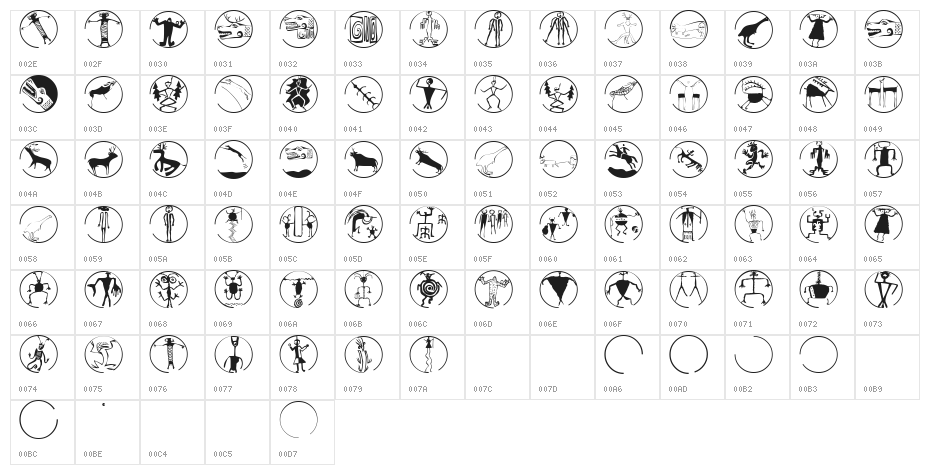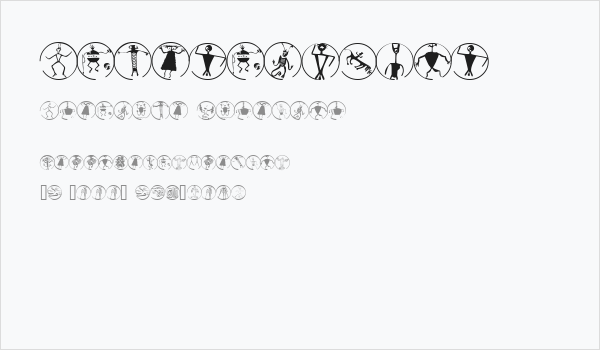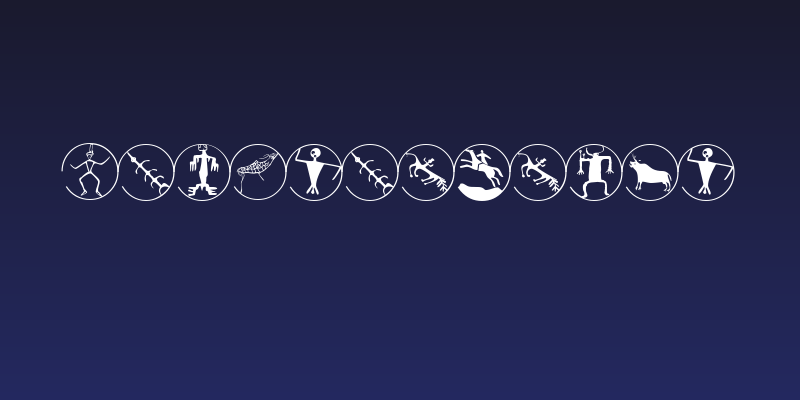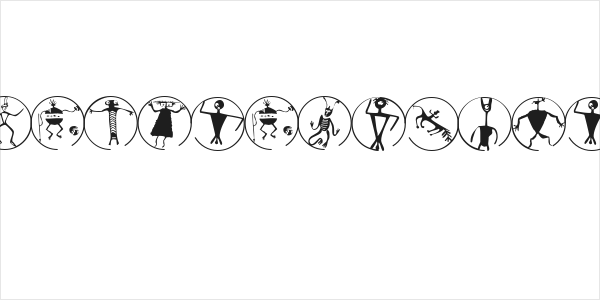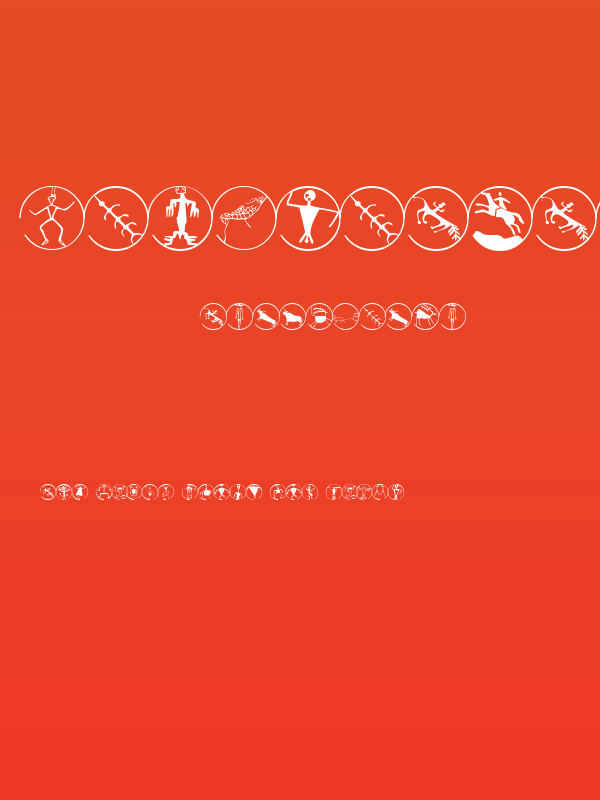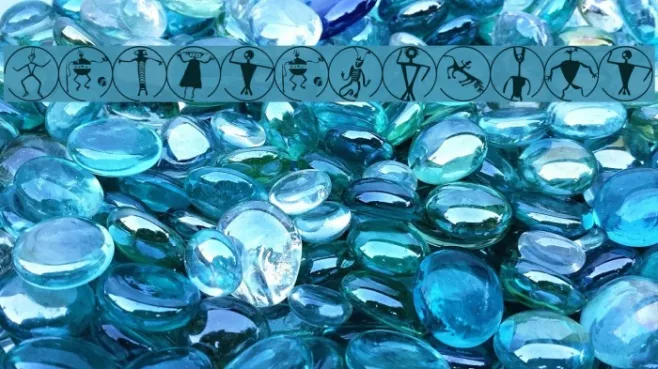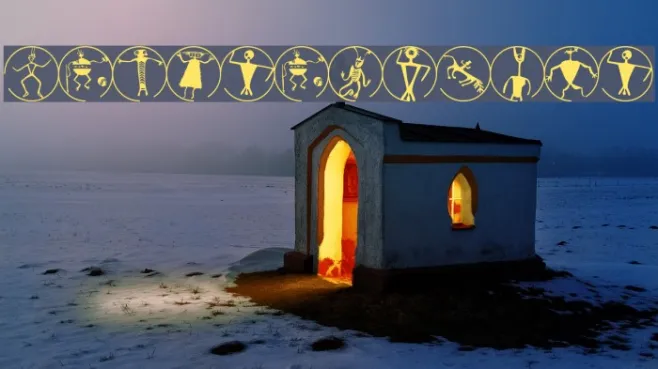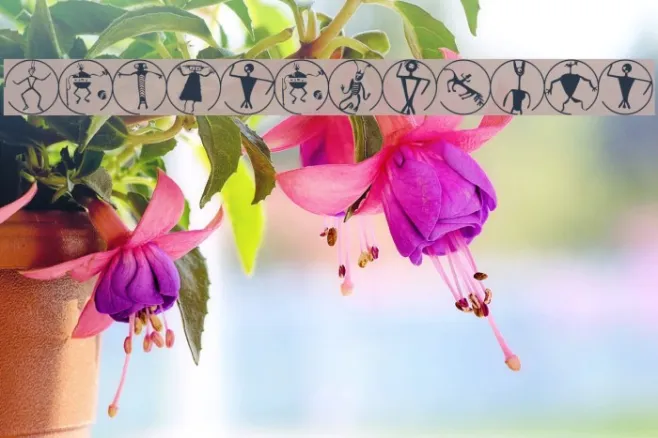
CaveBatsTwoB Font
CaveBatsTwoB Description
This unique and artistic font features a series of pictographic symbols inspired by cave paintings and ancient art. Each character is enclosed within a circle, depicting various stylized figures and animals, reminiscent of prehistoric petroglyphs. The designs are intricate, with a playful yet mysterious aesthetic, capturing the essence of ancient storytelling through visual representation. The font does not follow traditional alphabetic or numeric conventions, instead offering a creative and thematic approach to design. Ideal for projects that require a touch of historical or cultural depth, this font stands out with its bold and imaginative illustrations.
| Use Case | Logos, Posters, Art projects |
| Proposed Projects | Ideal for cultural exhibitions, educational materials on history, themed event posters, or creative art projects. |